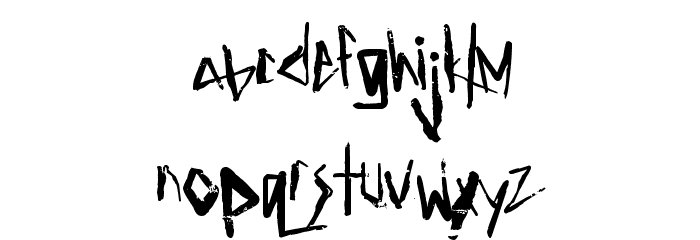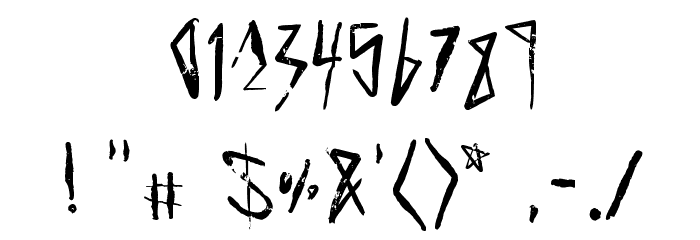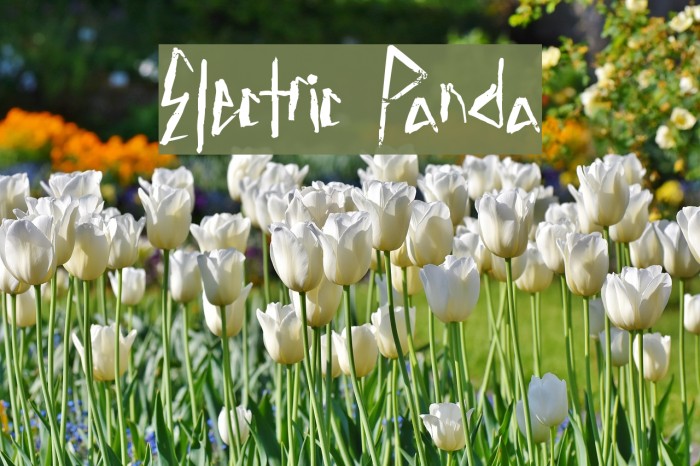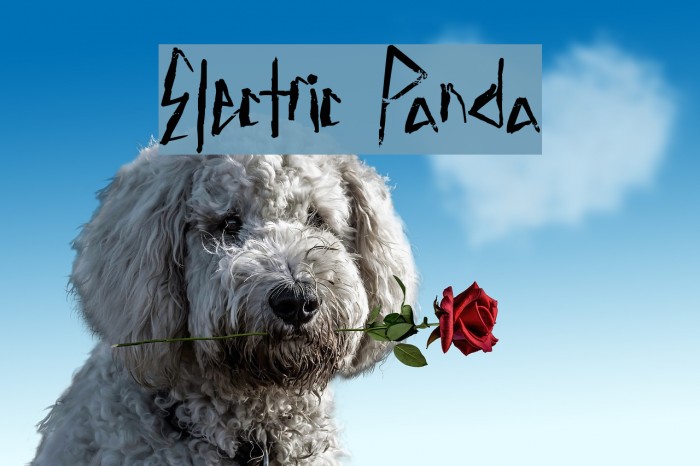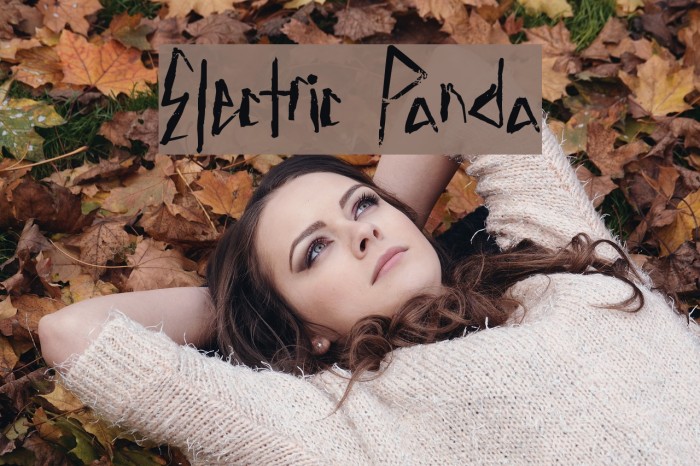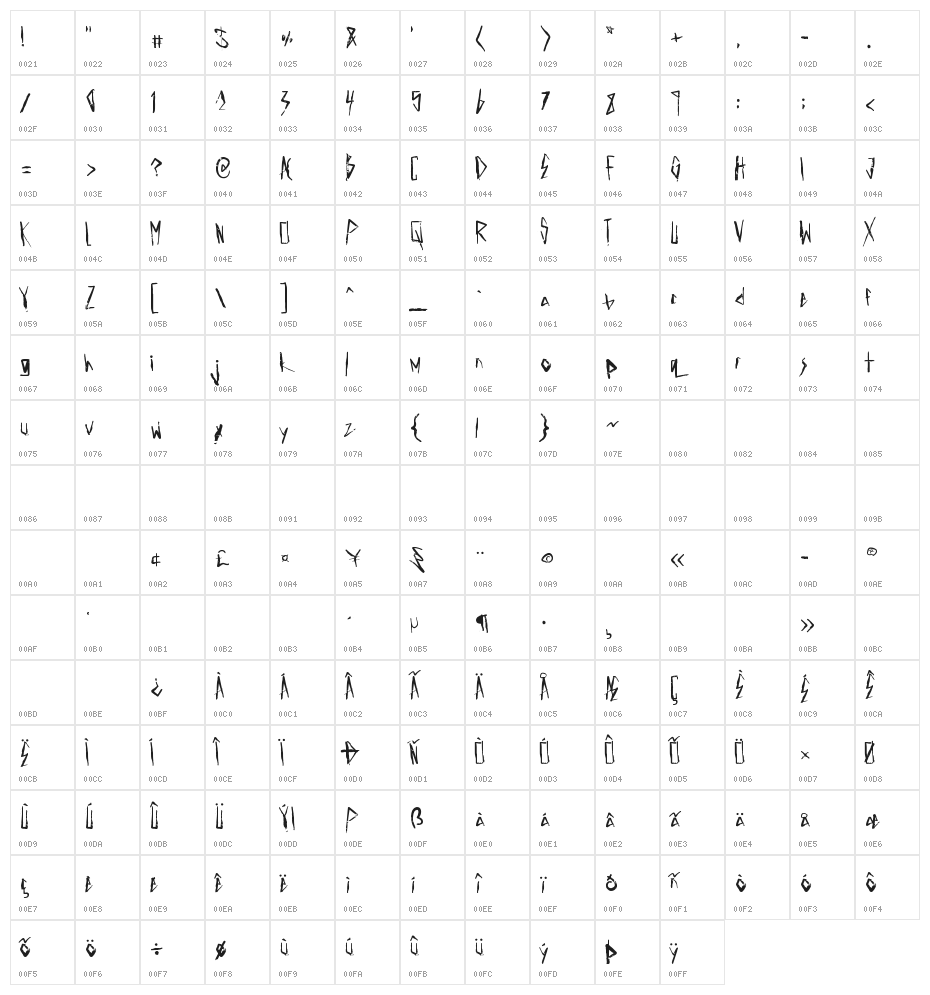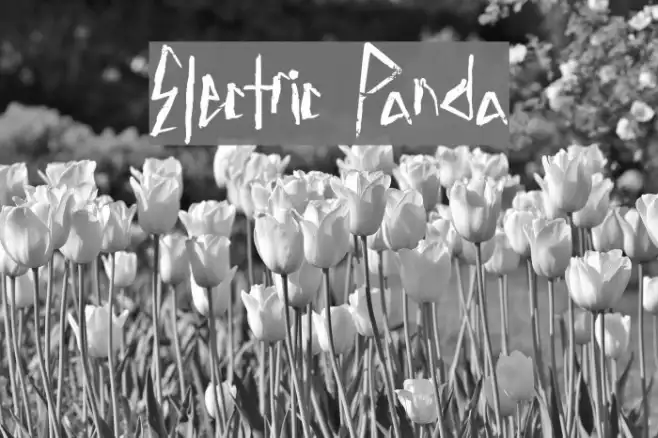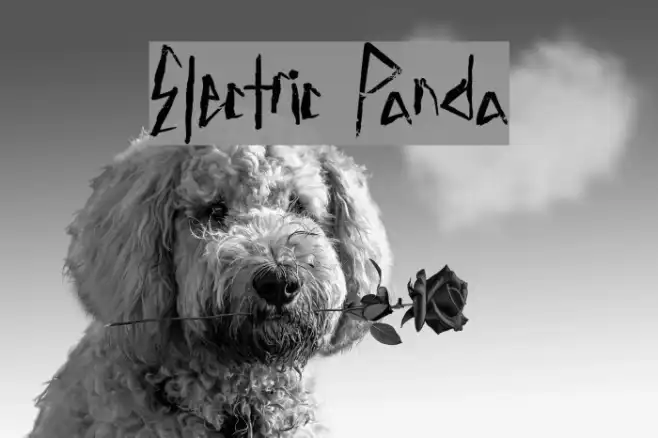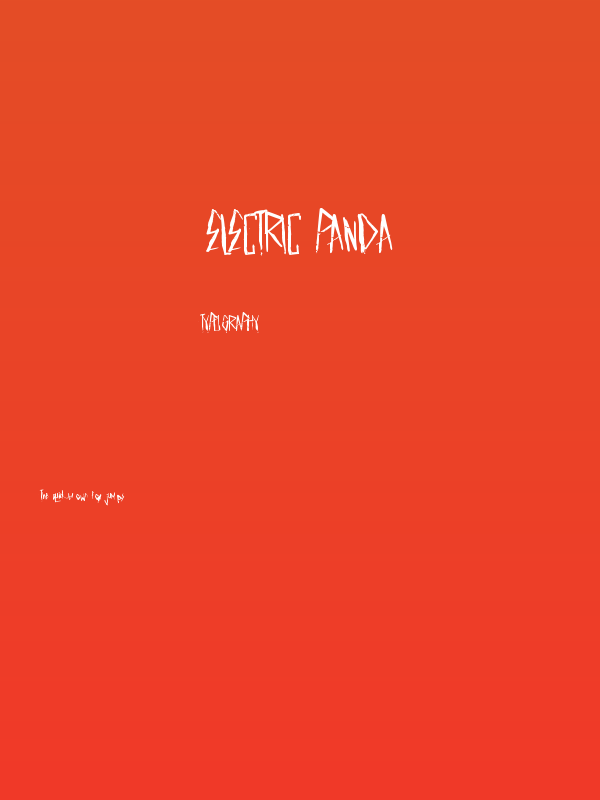
Electric Panda Font
This font features a highly expressive and edgy design, characterized by its jagged, irregular strokes that convey a sense of raw energy and dynamism. The letters appear as if they were hastily sketched with a brush, giving them a distressed, grungy appearance. The uppercase and lowercase letters maintain a consistent style, with sharp angles and uneven lines that create a chaotic yet artistic look. Numbers and special characters follow the same aesthetic, adding to the font's overall rebellious and unconventional vibe. This font is perfect for projects that require a bold statement and a touch of artistic flair.
An edgy, grungy font with jagged, irregular strokes and a rebellious vibe.
- Proposed Projects: Ideal for album covers, streetwear branding, posters, and edgy graphic design projects.
- Overall Style: Modern, Grunge